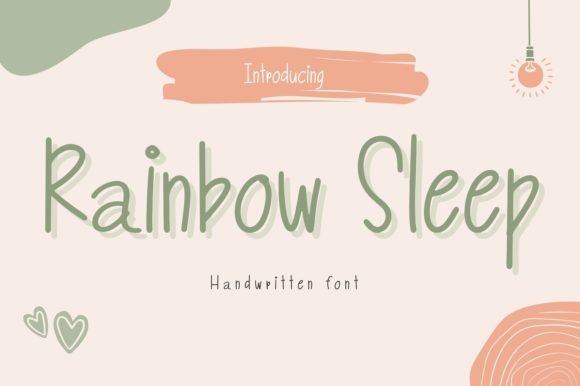
Introducing Rainbow Sleep Font, a whimsical and charming handwritten font that sparks joy and creativity. Its delicate strokes and playful characters bring an element of magic to any design project. Created by the talented Brown Cupple Fonts, this font is a true gem for those seeking unique and captivating typography.
With its enchanting appearance, Rainbow Sleep Font effortlessly adds a touch of playfulness and authenticity to your creations. Its versatility makes it a perfect fit for a wide range of projects, including blog logos, social media graphics, invitations, greeting cards, and packaging. Let your imagination soar as you explore the endless possibilities of this captivating font.
Rainbow Sleep Font possesses a lightness of being, making it ideal for designs that require a sense of airiness and elegance. Its characters dance and flow, creating a visual rhythm that draws the eye and captivates the heart. Experience the magic as your words transform into beautiful works of art with Rainbow Sleep Font.
Escape the ordinary and embrace the extraordinary with Rainbow Sleep Font. Its uniqueness will make your designs stand out from the crowd, leaving a lasting impression on your audience. Let your creativity shine and let Rainbow Sleep Font be your guide into a world of visual enchantment.